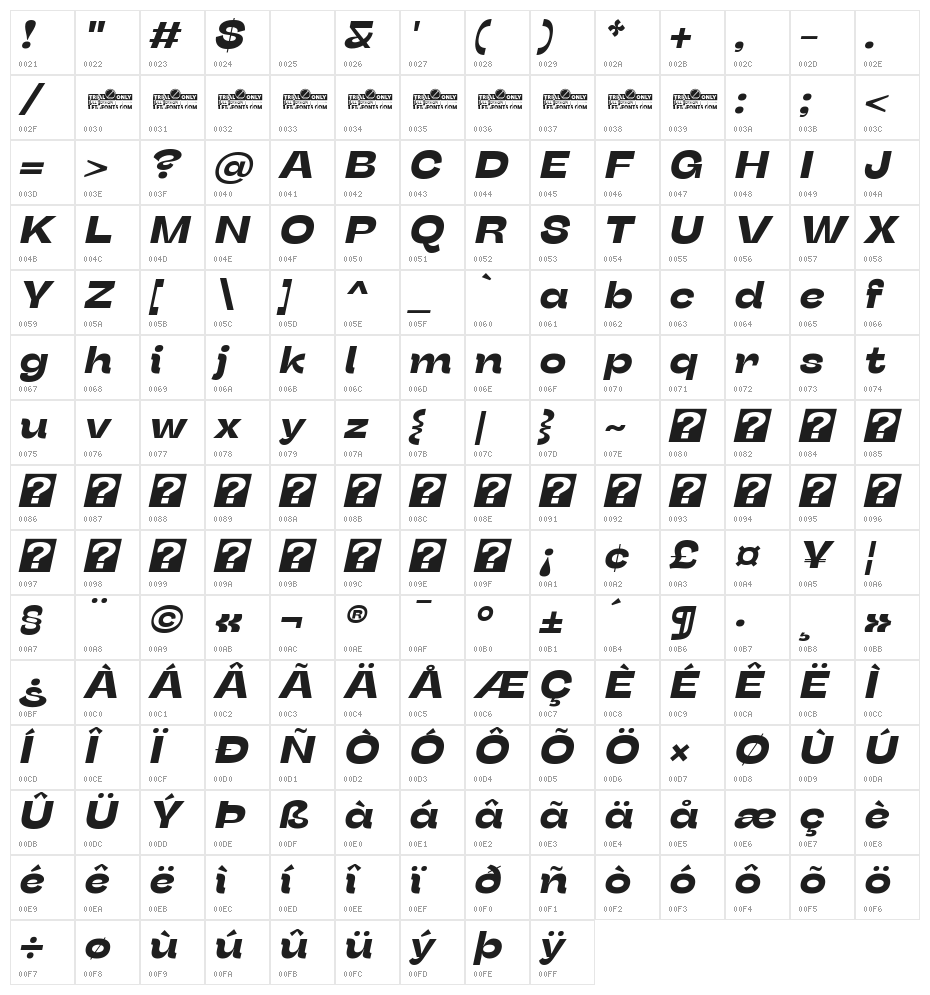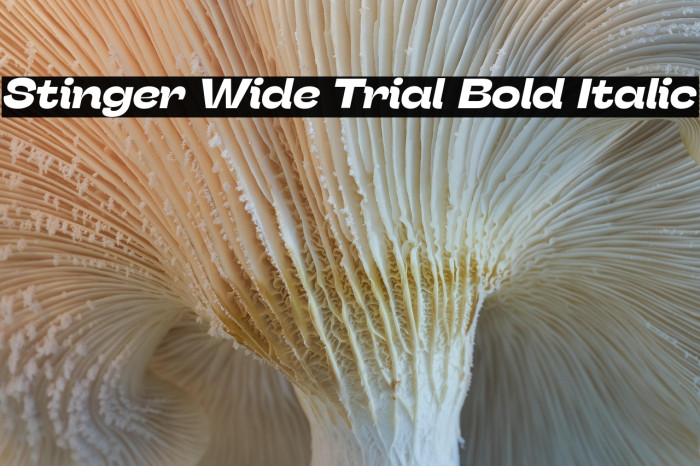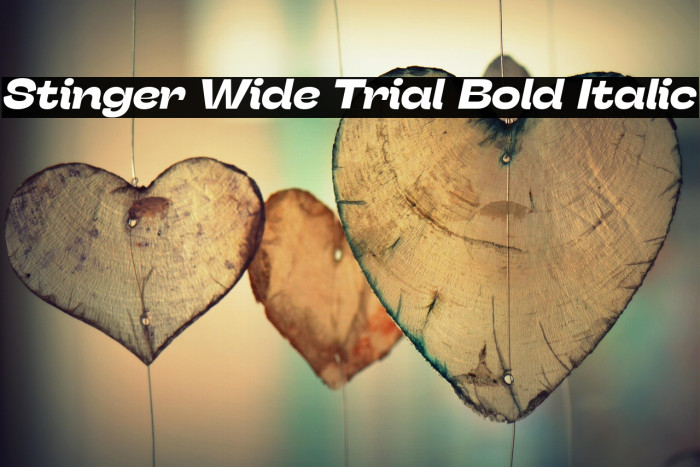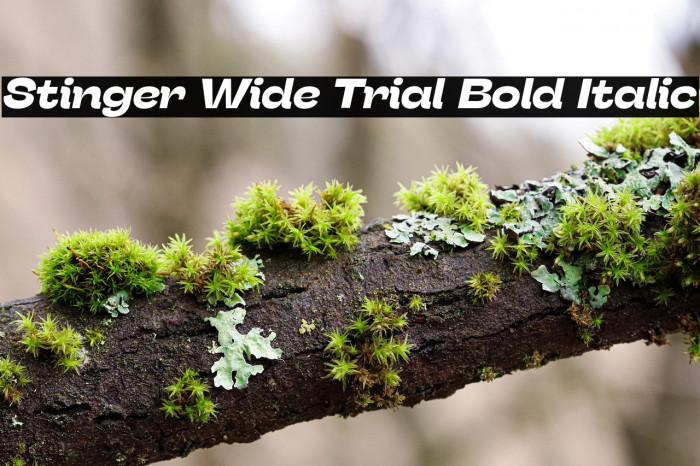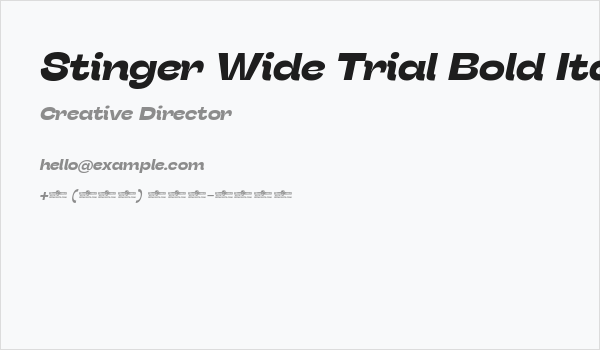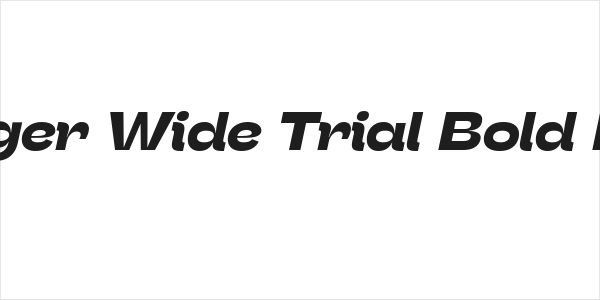
Stinger Wide Trial Bold Italic Font
Stinger Wide Trial Bold Italic Description
This font features a bold and italic style with a distinctly modern and dynamic appearance. The characters are wide and have a strong presence, making them ideal for attention-grabbing designs. The italic slant adds a sense of motion and energy, while the bold weight ensures readability and impact. The uppercase and lowercase letters maintain a consistent style, with rounded edges that soften the overall look. Special characters are included, maintaining the same bold and italic characteristics. This font is suitable for projects that require a contemporary and assertive typeface.
Use CaseHeadlines, Logos, Branding
Proposed ProjectsIdeal for branding, advertising, headlines, and any design needing a bold statement.